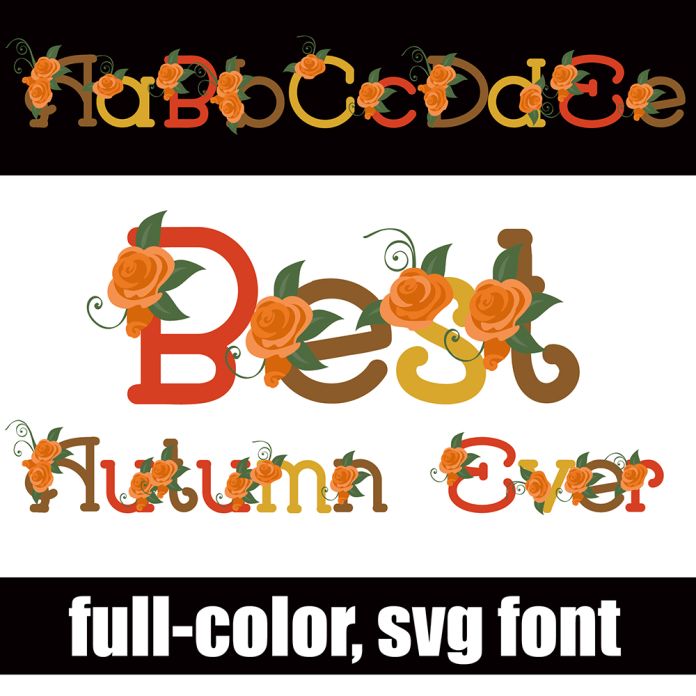
Best Autumn Ever Color Font
This full-color font features a serif font in an autumn color palette with florals throughout. There is an alt version you can access through your system's character map that contains additional colors of all the letters. This font works best for titles, displays, posters and more. Please note color fonts will show as black in non compatible programs. This font type is compatible with Silhouette Studio.